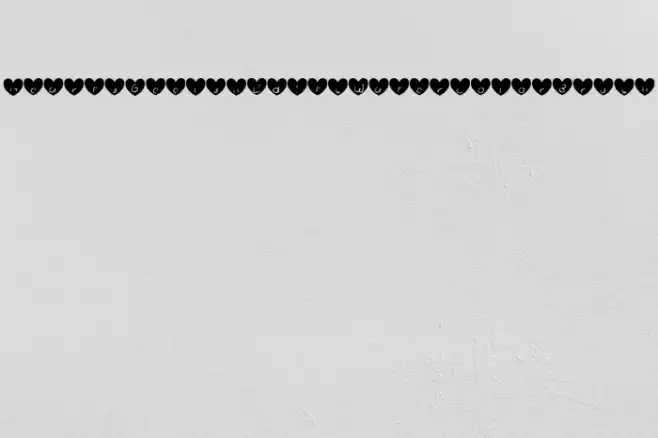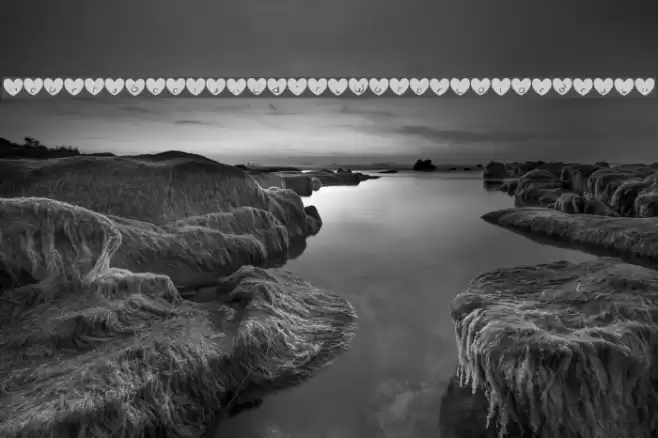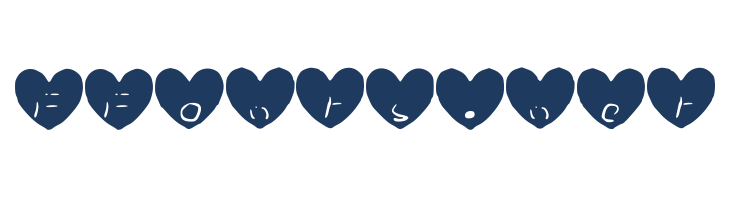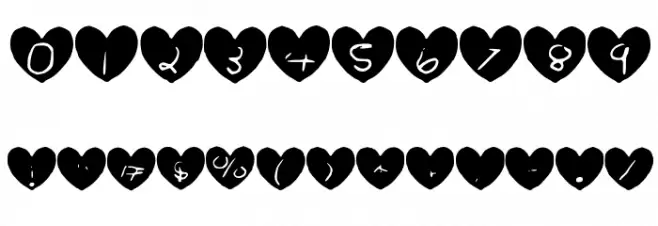
Hearty_Geelyn_Edits_Watercolor_Brush Font
Hearty_Geelyn_Edits_Watercolor_Brush Description
This playful and decorative font features characters enclosed within heart shapes, giving it a whimsical and romantic feel. The letters and numbers are handwritten, adding a personal touch to the design. The strokes are smooth and consistent, with a medium contrast that enhances readability while maintaining the artistic style. The heart motif is consistent across all characters, creating a cohesive and charming appearance. This font is perfect for projects that require a touch of love and creativity, such as Valentine's Day cards, wedding invitations, or playful branding materials.
A whimsical font with characters inside heart shapes, ideal for romantic and playful designs from Uncategorized fonts.
- Proposed Projects: Valentine's Day cards, wedding invitations, playful branding, greeting cards, and decorative posters.
- Use Case: Headlines, Logos, Decorative text